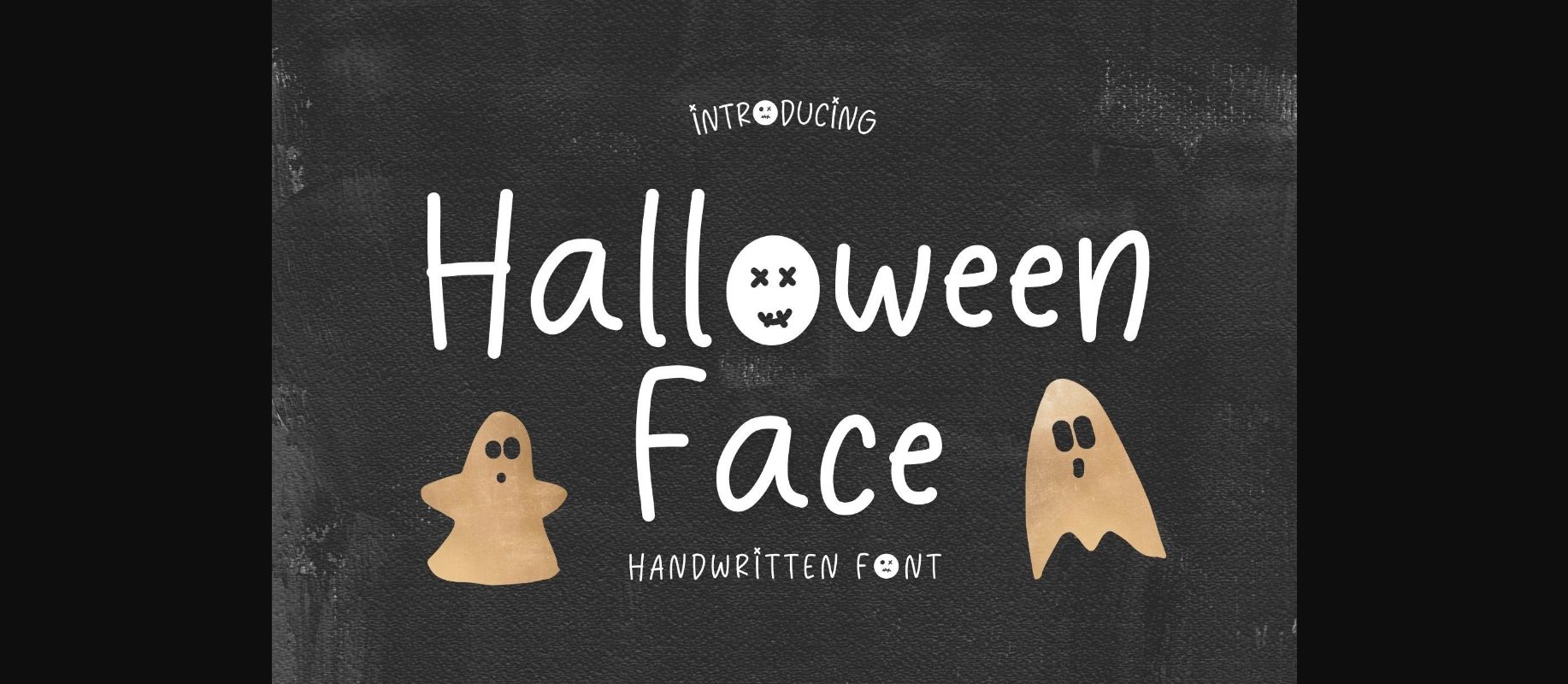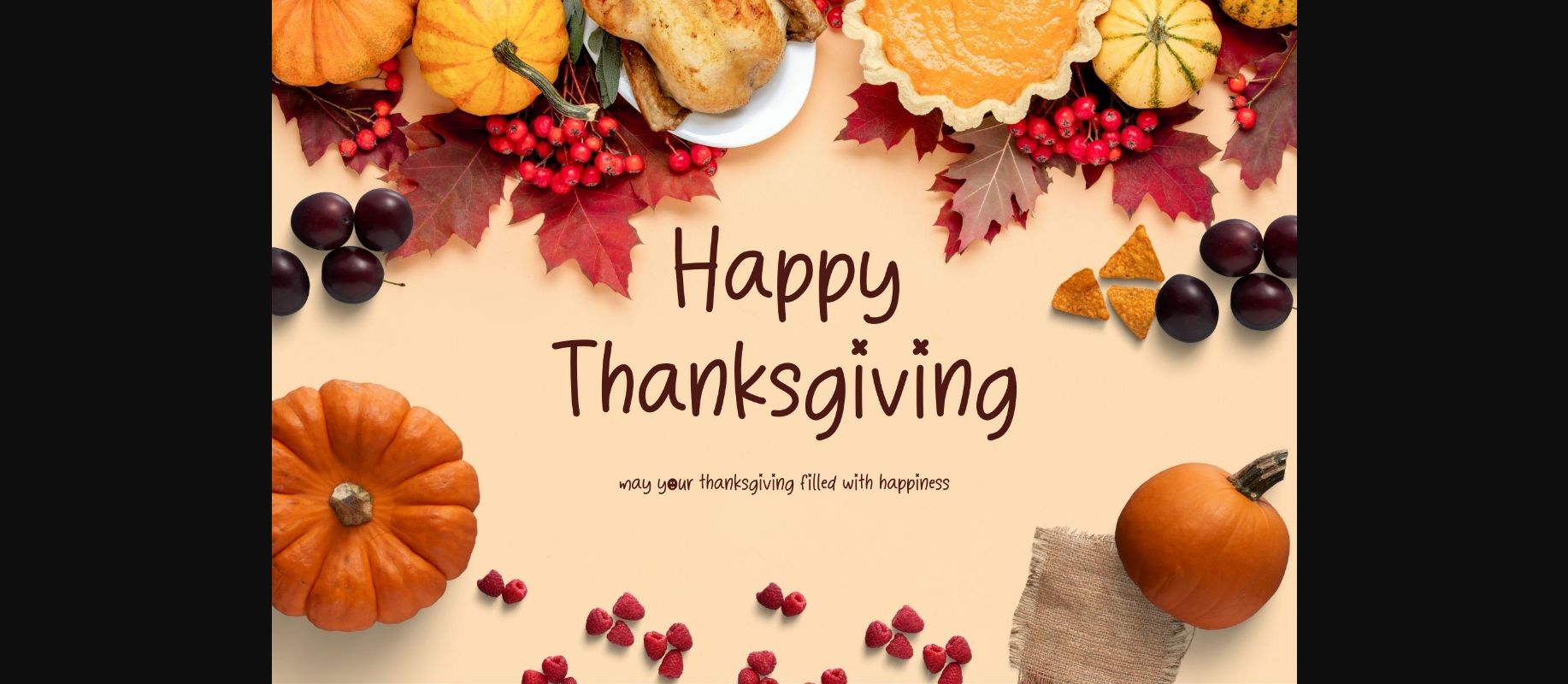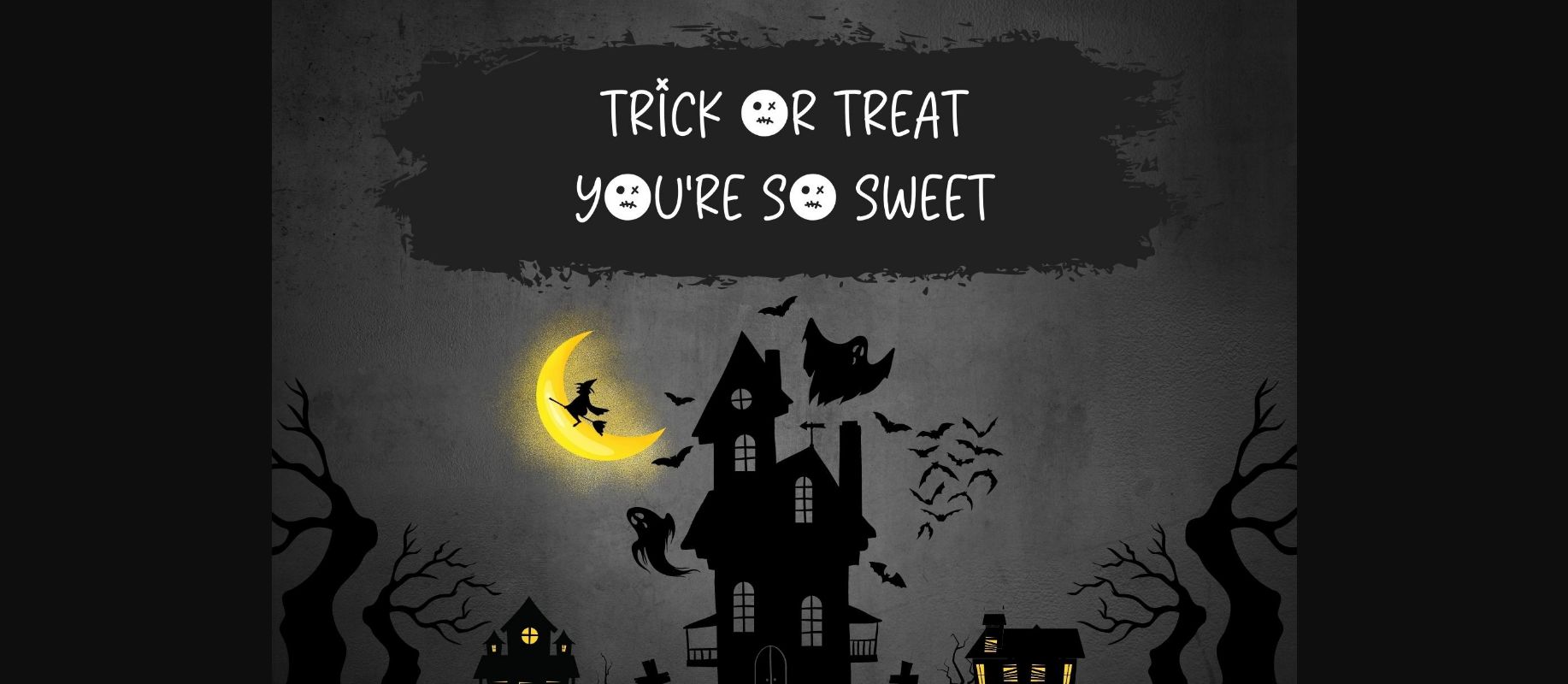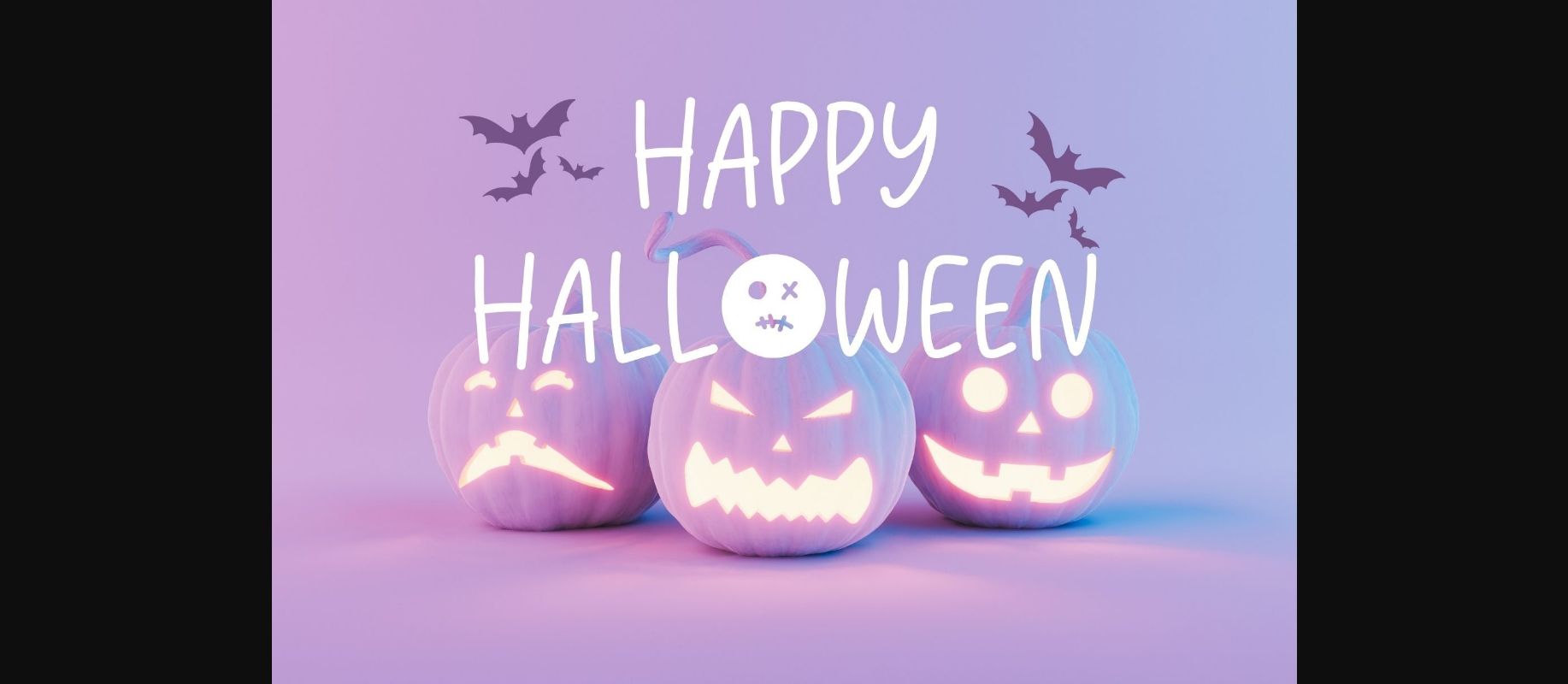
About Halloween Face Font
Introducing \”Halloween Face Font,\” a delightfully spooky and decorative typeface that captures the essence of Halloween. With its playful yet eerie letterforms, this font is perfect for adding a touch of Halloween magic to party invitations, haunted house flyers, and seasonal designs. Let Halloween Face Font bring your creations to life with its festive and captivating style.